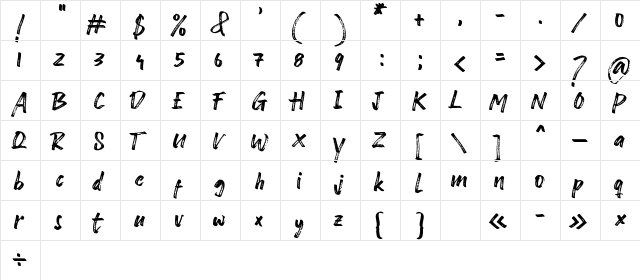
Ghost Brush Regular
| Foundry | Azetype Studio |
| Designer | Muh. Gusti ADM and Abdul Muthalib from Azetype Studio |
Design Context for Ghost Brush Typeface
Ghost Brush brings a calligraphic fluidity to the page — its connecting strokes and expressive curves give it an unmistakably human quality.